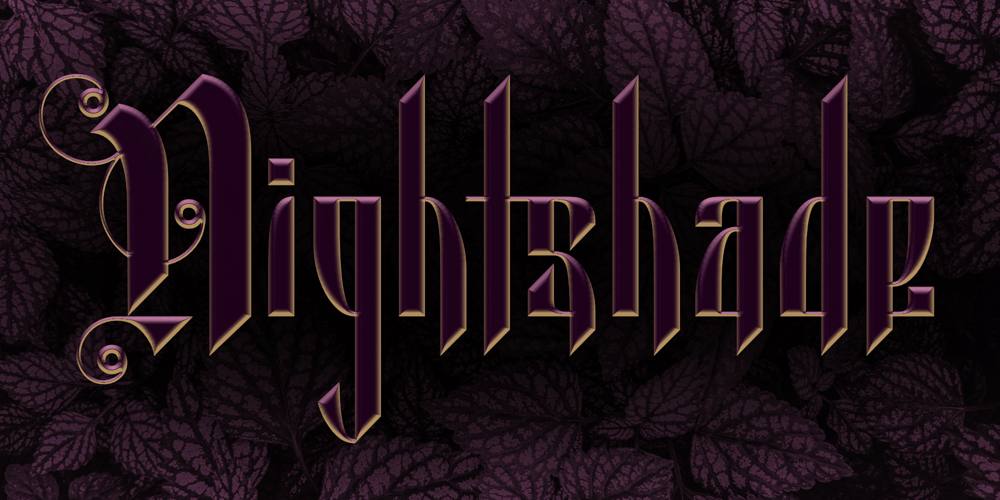
Nightshade Font Family was designed by Michael Kovacevich and published by MKGD. Nightshade contains 1 styles and family package options. Nightshade was my attempt to bring the Old English fonts up to date. The capital letters still contain flourishes, but they look more machined and less calligraphic. I called the font Nightshade after the plant of the same name. Like the plant, it may be considered to be beautiful or poisonous depending on one’s outlook. As a result, it can be applied when an attractive, ornate look is required, or it can be used when there is a need to create a more chilling effect.Nightshade has a glyph count of 389 and supports the following languagesAfrikaans, Albanian, Asu, Basque, Bemba, Bena, Bosnian, Catalan, Chiga, Colognian, Cornish, Croatian, Czech, Danish, Embu, English, Esperanto, Estonian, Faroese, Filipino, Finnish, French, Friulian, Galician, German, Gusii, Hungarian, Icelandic, Indonesian, Irish, Italian, Kabuverdianu, Kalaallisut, Kalenjin, Kamba, Kikuyu, Kinyarwanda, Latvian, Lithuanian, Low German, Lower Sorbian, Luo, Luxembourgish, Luyia, Machame, Makhuwa-Meetto, Makonde, Malagasy, Malay, Maltese, Manx, Meru, Morisyen, North Ndebele, Norwegian Bokmål, Norwegian Nynorsk, Nyankole, Oromo, Polish, Portuguese, Romanian, Romansh, Rombo, Rundi, Rwa, Samburu, Sango, Sangu, Scottish Gaelic, Sena, Shambala, Shona, Slovak, Slovenian, Soga, Somali, Spanish, Swahili, Swedish, Swiss German, Taita, Teso, Turkmen, Upper Sorbian, Vunjo, Walser, Zulu